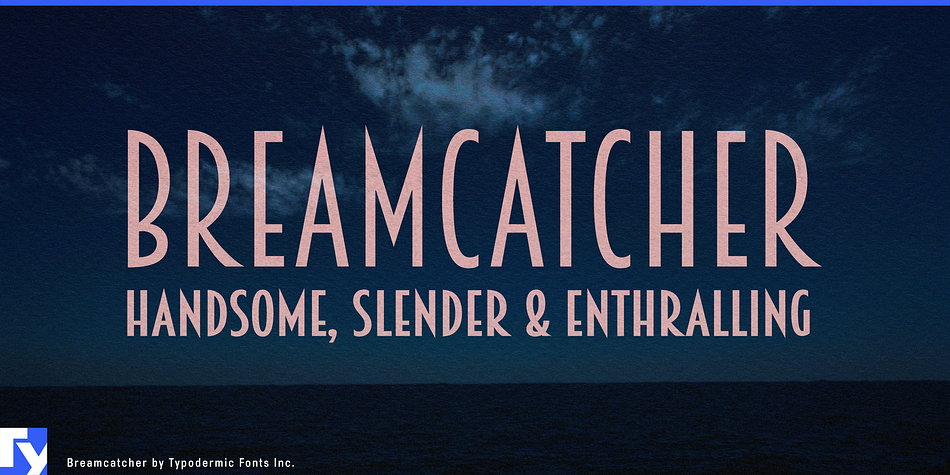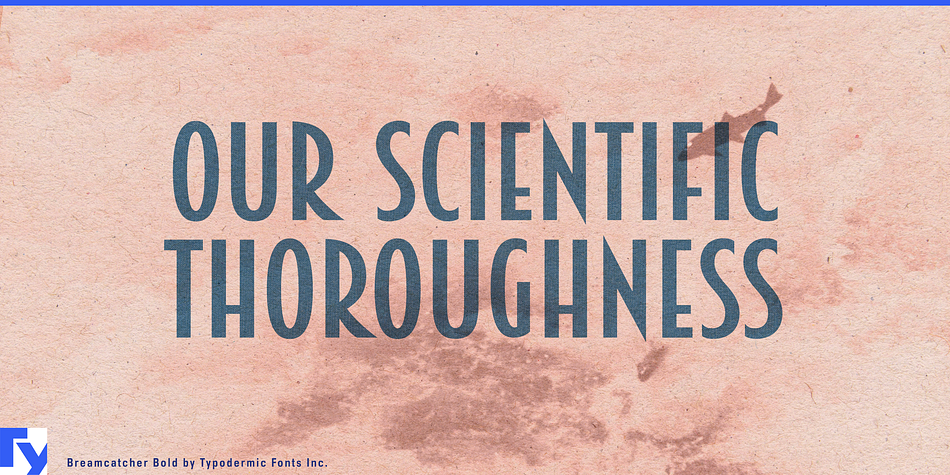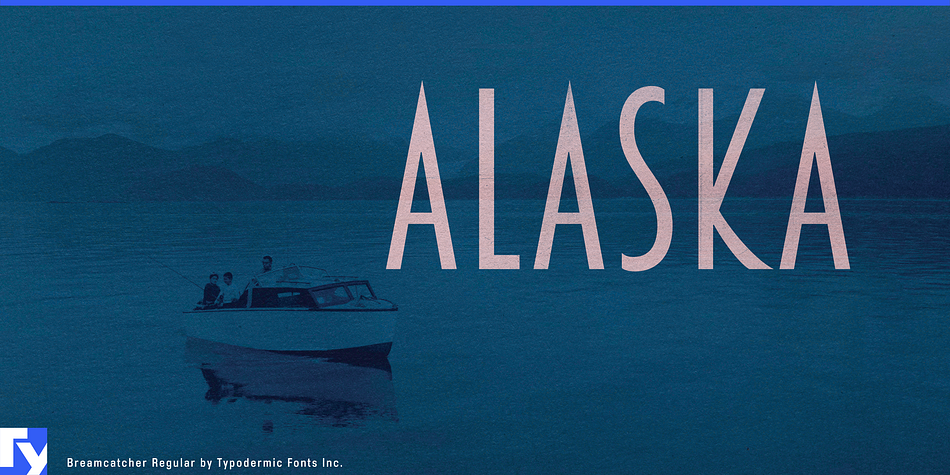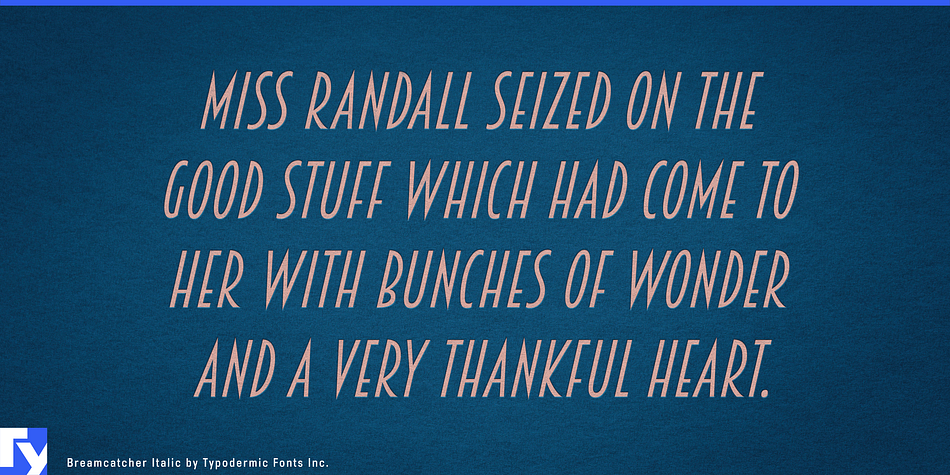
Breamcatcher is a art deco font published by Typodermic Fonts Inc.
Breamcatcher is a narrow, Art Deco headline/titling font inspired by the piano sheet music for With Every Breath I Take which was featured in the Bing Crosby/Kitty Carlisle musical comedy film, Here is my Heart.